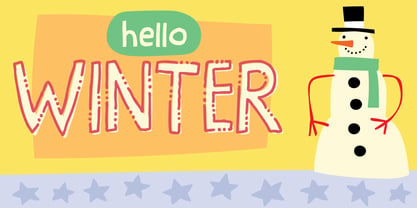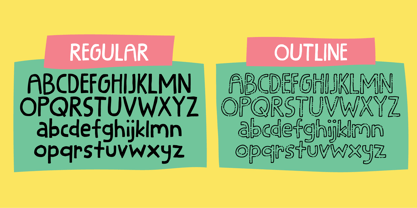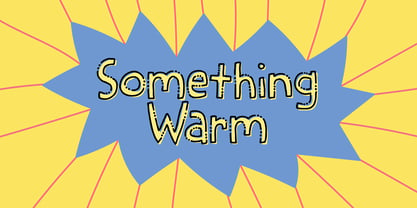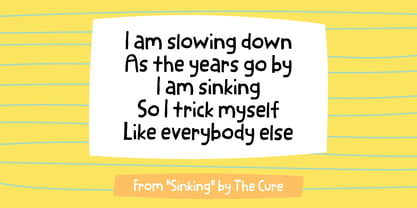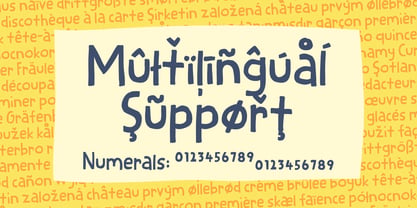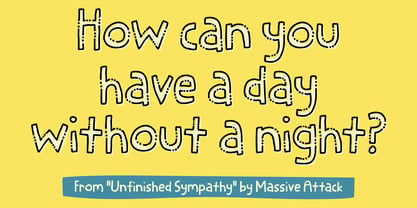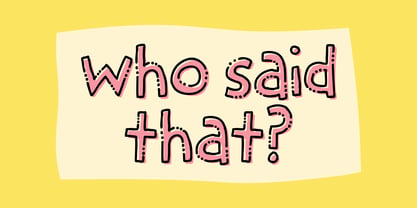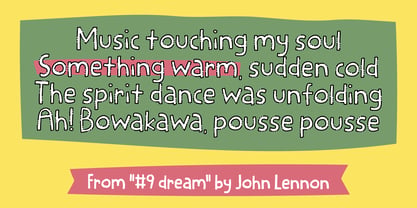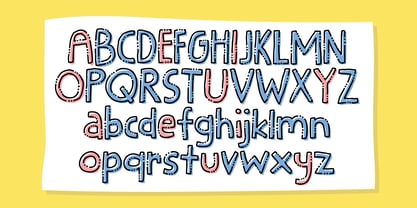
Something Warm
by Bogstav
The Something Warm Font Family was designed by Jakob Fischer and published by Bogstav. Something Warm contains 2 styles and family package options. More about this family
The phrase “Something Warm” comes from a song by John Lennon. The font is fresh, organic and handmade font - legible both as lowercase, but also super nice in all-caps. The organic comic look makes it ideal for branding, social media, books for kids, stationary, packaging and greeting cards. Basically, Something Warm is full of fun and playfullness! Along comes an outlined version with “mysterious dots” - as I like to call them :) Adding both strength and extra creativity to your project!